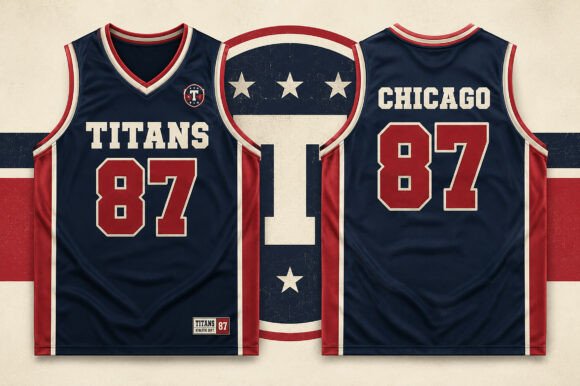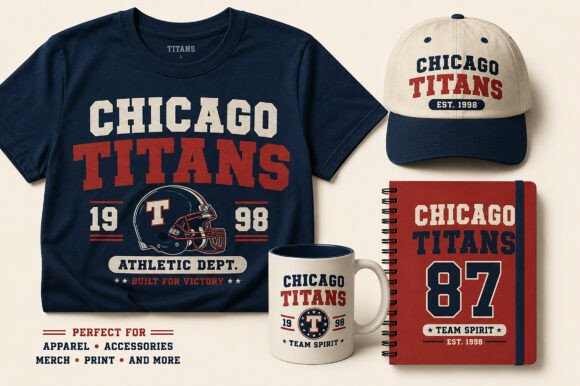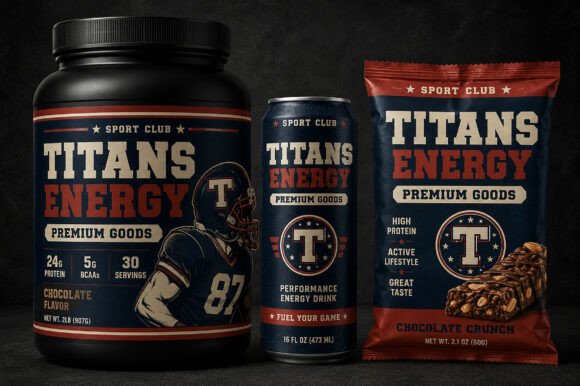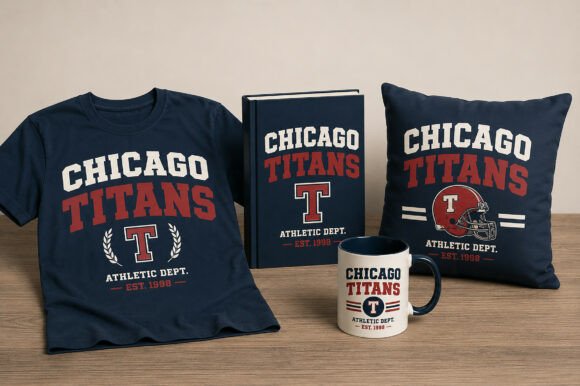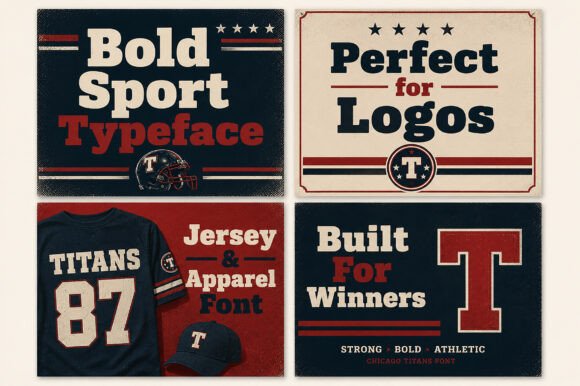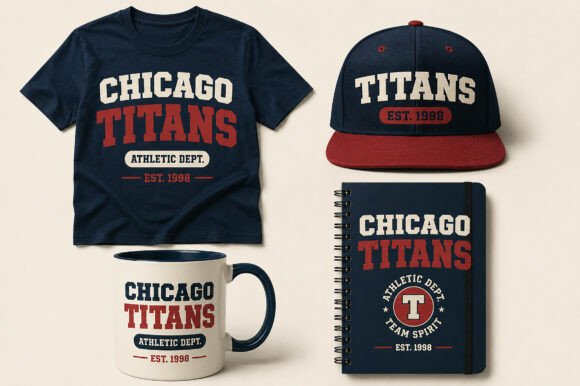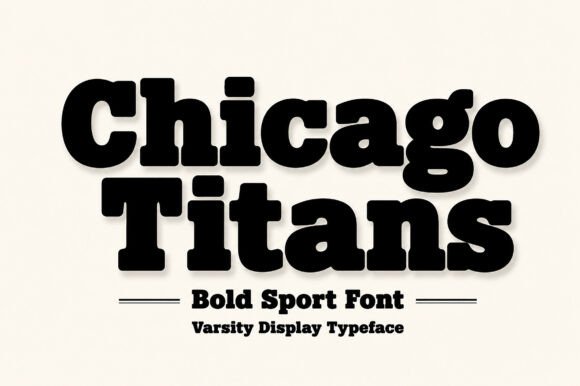
Introducing Chicago Titans: The Ultimate Sport Display Font for Designers and Crafters
Are you a designer or crafter looking for a font that embodies the spirit of athleticism and vintage sports typography? Look no further than Chicago Titans, a commanding sport display font that is sure to elevate your designs to the next level. Inspired by the quintessential athletic, varsity, and retro sport typography, Chicago Titans is the perfect choice for creating bold and eye-catching headlines, jersey typography, team emblems, and more.
The Inspiration Behind Chicago Titans
Chicago Titans is a font that is deeply rooted in the rich history of sports typography. Its design is inspired by the classic athletic fonts of the past, with sturdy slab-style letterforms and dynamic curves that evoke a sense of vintage sports nostalgia. The font’s robust structure and athletic flair make it a prime choice for designers and crafters who want to create bold and attention-grabbing designs that are sure to stand out.
Key Features of Chicago Titans
So, what sets Chicago Titans apart from other fonts? Here are some of its key features:
• Sturdy Slab-Style Letterforms: Chicago Titans features sturdy slab-style letterforms that are perfect for creating bold and commanding headlines.
• Dynamic Curves: The font’s dynamic curves add a touch of elegance and sophistication to its overall design.
• Robust Structure: Chicago Titans has a robust structure that makes it perfect for use in jersey typography, team emblems, and other sports-related designs.
• Athletic Flair: The font’s athletic flair makes it a great choice for designers and crafters who want to create designs that are energetic and vibrant.
Use Cases for Chicago Titans
Chicago Titans is a versatile font that can be used in a variety of design projects, including:
• Jersey Typography: Create bold and eye-catching jersey typography that is sure to stand out on the field or court.
• Team Emblems: Design team emblems that are robust, athletic, and memorable.
• Apparel Branding: Create apparel branding that is bold, vibrant, and energetic.
• Posters: Design posters that are attention-grabbing and memorable.
• Merchandise Creative: Create merchandise designs that are fun, energetic, and eye-catching.
• Gaming Graphics: Design gaming graphics that are bold, vibrant, and engaging.
• Event Advertisements: Create event advertisements that are attention-grabbing and memorable.
• College-Theme Visuals: Design college-theme visuals that are bold, energetic, and spirited.
Why Choose Chicago Titans?
So, why should you choose Chicago Titans for your design projects? Here are just a few reasons:
• Unique Design: Chicago Titans has a unique design that is sure to stand out in a crowded design landscape.
• Versatility: The font is versatile and can be used in a variety of design projects.
• Ease of Use: Chicago Titans is easy to use and can be easily integrated into your design workflow.
• High-Quality: The font is high-quality and is sure to deliver professional-looking results.
Chicago Titans is a commanding sport display font that is sure to elevate your designs to the next level. With its sturdy slab-style letterforms, dynamic curves, robust structure, and athletic flair, this font is perfect for designers and crafters who want to create bold and eye-catching designs. Whether you’re designing jersey typography, team emblems, apparel branding, or more, Chicago Titans is the perfect choice. So why wait? Download Chicago Titans today and start creating amazing designs!